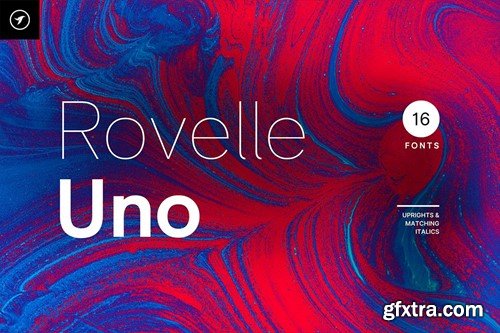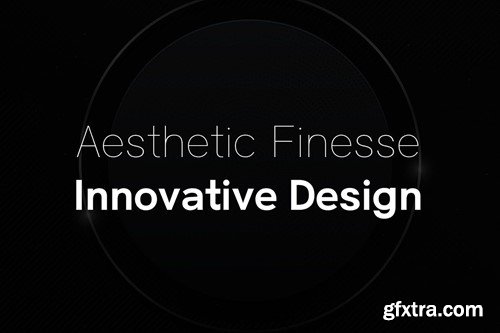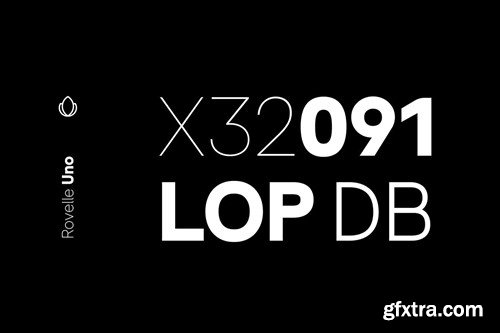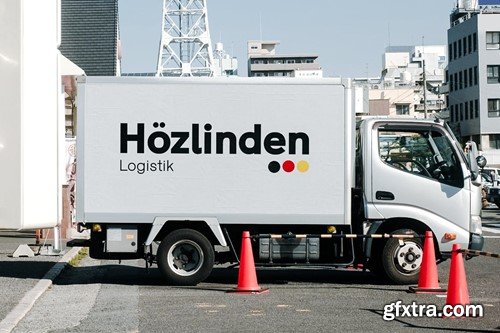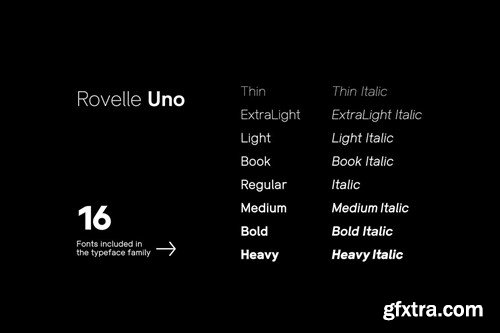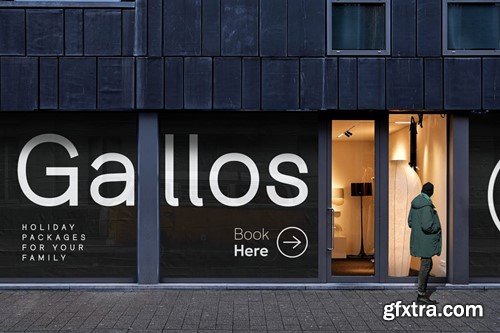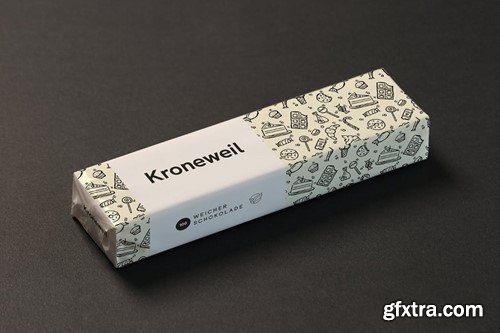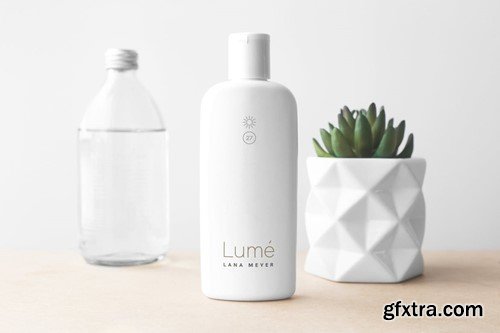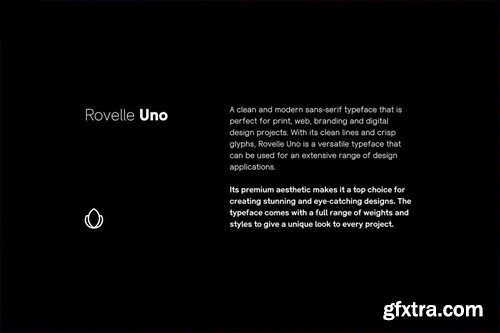
罗维尔Uno - 现代无衬线字体家族 98X8DS2
Rovelle Uno is a modern Sans-Serif font family that includes 16 fonts with a clean and balanced design, giving it a timeless and enduring appearance. Rovelle is the second typeface from the Uno class of font families, which contains the most feature-rich Sans-Serif typefaces in our portfolio. The Rovelle Uno font family is an exceptional pick for creating various designs and textual representations. It is the perfect solution for logotypes, branding, headlines, corporate identities, and marketing materials for both digital and print use. This typeface is an amazing choice for branding, logotype, design projects, marketing graphics, banners, posters, signage, corporate identities, and editorial design. By adding extra letter spacing, this font transforms into the perfect choice for minimalist headlines and logotypes, as demonstrated in the promo designs attached. FEATURES: Rovelle Uno typeface includes 16 fonts in total, with eight upright weights (Thin / ExtraLight / Book / Regular / Medium / Bold / Heavy) and Italic equivalents of all eight weights. The pack contains Desktop Fonts (OTF, TTF) and Web Fonts (all EOT, SVG, and WOFF included). HTML & CSS WebFont preset and demo are available in the download pack. Handcrafted and designed with powerful OpenType features in mind, each weight includes extended language support with Western European, Central European, and South Eastern European sets. A total of 372 glyphs are included. EXTENSIVE LANGUAGE SUPPORT: Afrikaans • Albanian • Asu • Basque • Bemba • Bena • Bosnian • Catalan • Cebuano • Chiga • Colognian • Cornish • Corsican • Croatian • Czech • Danish • Embu • English • Esperanto • Estonian • Faroese • Filipino • Finnish • French • Friulian • Galician • Ganda • German • Gusii • Hungarian • Icelandic • Ido • Inari Sami • Indonesian • Interlingua • Irish • Italian • Javanese • Jju • Jola-Fonyi • Kabuverdianu • Kalaallisut • Kalenjin • Kamba • Kikuyu • Kinyarwanda • Kurdish • Latvian • Lithuanian • Lojban • Low German • Lower Sorbian • Luo • Luxembourgish • Luyia • Machame • Makhuwa-Meetto • Makonde • Malagasy • Malay • Maltese • Manx • Māori • Meru • Morisyen • North Ndebele • Northern Sami • Northern Sotho • Norwegian Bokmål • Norwegian Nynorsk • Nyanja • Nyankole • Occitan • Oromo • Polish • Portuguese • Rejang • Romanian • Romansh • Rombo • Rundi • Rwa • Samburu • Sango • Sangu • Sardinian • Scottish Gaelic • Sena • Shambala • Shona • Slovak • Slovenian • Soga • Somali • South Ndebele • Southern Sotho • Spanish • Sundanese • Swahili • Swati • Swedish • Swiss German • Taita • Taroko • Teso • Tsonga • Tswana • Turkmen • Upper Sorbian • Vunjo • Walloon • Walser • Welsh • Wolastoqey • Wolof • Xhosa • Zulu CREDITS: Typeface designed & distributed by Designova®, made with ♥ in Berlin.